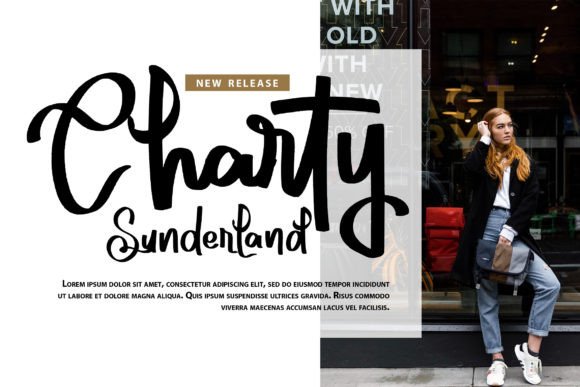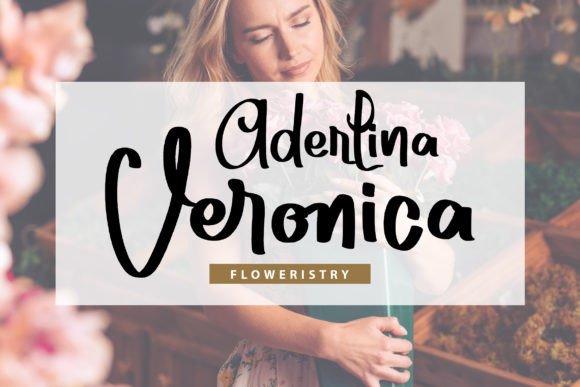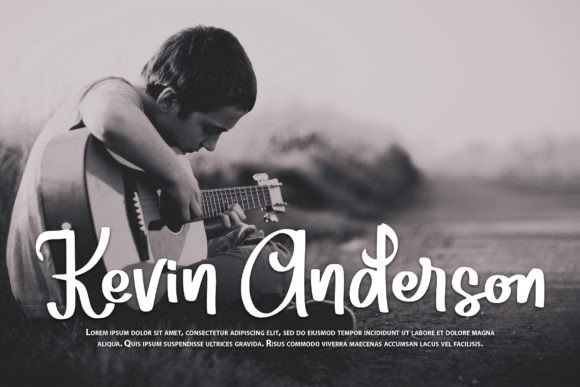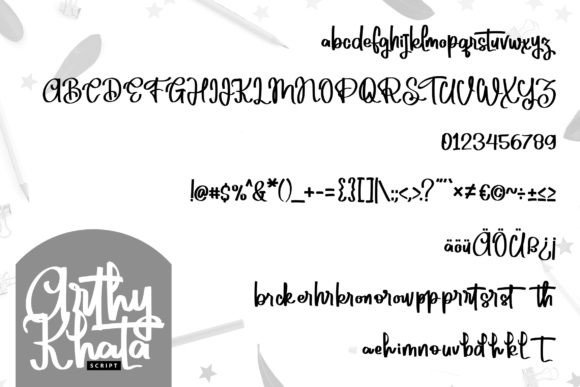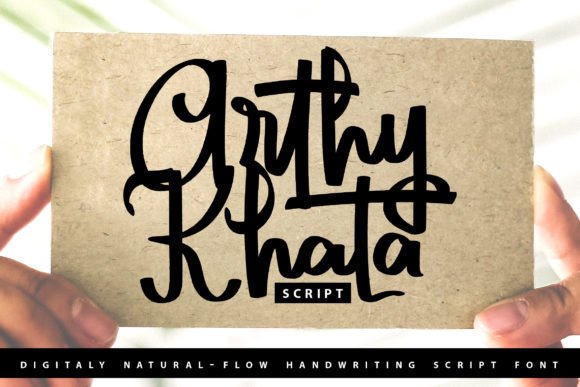
Discover the Charm of Arthy Khata Font: Elevate Your Designs with a Lovely Handwritten Style
Are you a designer or crafter looking for a font that can add a touch of elegance and personality to your work? Look no further than Arthy Khata Font, a beautiful and timeless handwritten font that is sure to make your designs come alive. In this article, we’ll explore the unique features of Arthy Khata and why it’s the perfect choice for creating eye-catching logos, branding, and quotes.
The Unique Charm of Arthy Khata Font
Arthy Khata Font is a lovely and timeless handwritten font that boasts a unique and beautiful touch. Every letter has been carefully crafted to ensure that it stands out from the crowd, making it the perfect choice for designers who want to create something truly special. The font’s handwritten style gives it a warm and inviting feel, making it perfect for a wide range of design projects.
Arthy Khata Font is incredibly versatile and can be used for a variety of design projects, including logos, branding, and quotes. Its elegant and cursive style makes it perfect for creating eye-catching logos that will help your brand stand out from the competition. Additionally, the font’s unique touch makes it ideal for creating inspiring and motivational quotes that will resonate with your audience.
Why Designers and Crafters Love Arthy Khata Font
So, what makes Arthy Khata Font so popular among designers and crafters? Here are just a few reasons why this font has become a favorite among creative professionals:
- Unique and Beautiful Touch: Every letter in Arthy Khata Font has a unique and beautiful touch that sets it apart from other fonts.
- Handwritten Style: The font’s handwritten style gives it a warm and inviting feel that is perfect for creating designs that are both elegant and approachable.
- Versatile: Arthy Khata Font is incredibly versatile and can be used for a wide range of design projects, from logos and branding to quotes and more.
- Elegant and Cursive: The font’s elegant and cursive style makes it perfect for creating designs that are both sophisticated and eye-catching.
How to Use Arthy Khata Font in Your Designs
- Use it for Headings and Titles: The font’s elegant and cursive style makes it perfect for use in headings and titles, where it can add a touch of sophistication and elegance to your design.
In conclusion, Arthy Khata Font is a beautiful and timeless handwritten font that is perfect for designers and crafters who want to add a touch of elegance and personality to their work. Its unique and beautiful touch, combined with its elegant and cursive style, make it the perfect choice for creating eye-catching logos, branding, and quotes. Whether you’re a professional designer or a crafter, Arthy Khata Font is sure to become a favorite in your design arsenal.